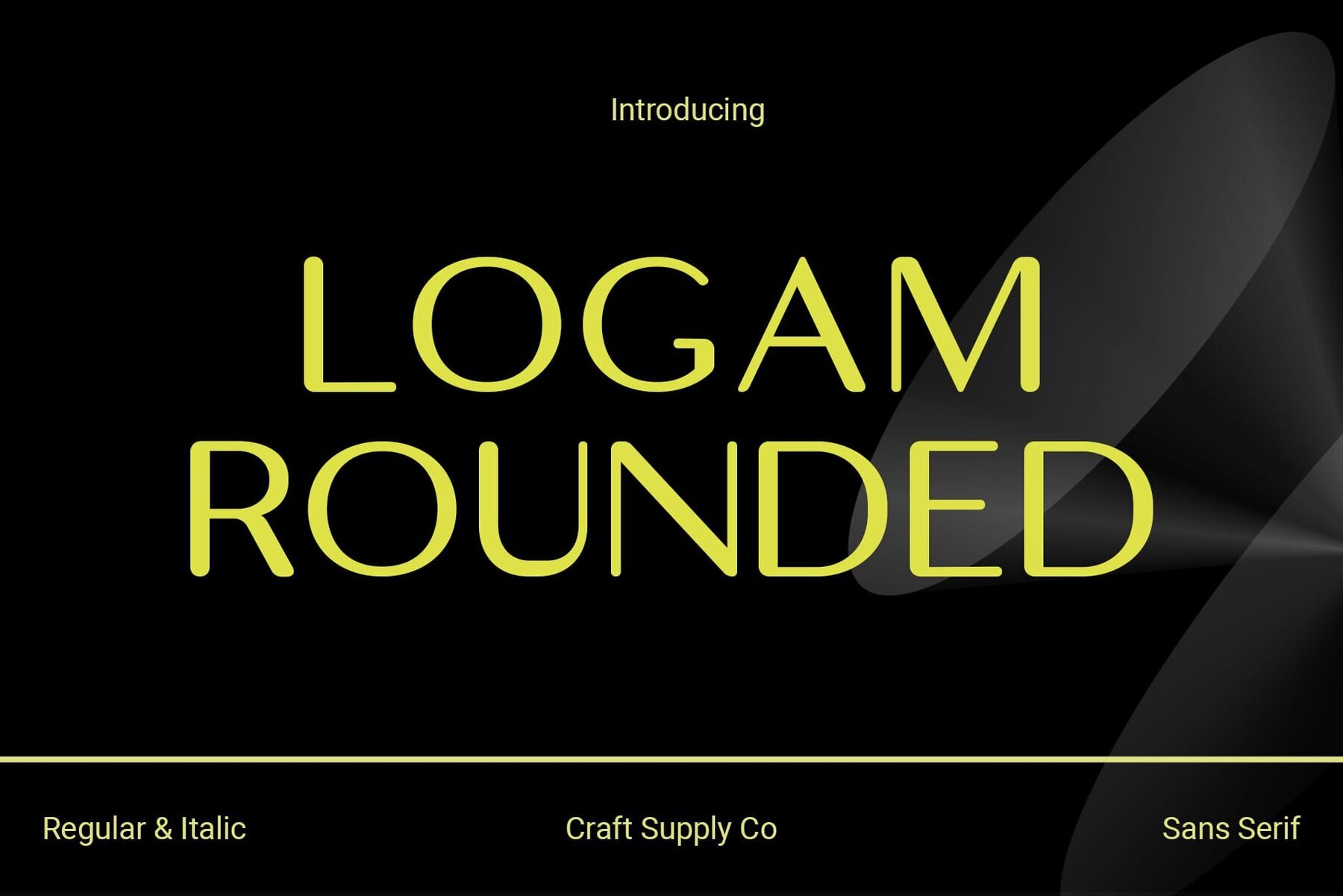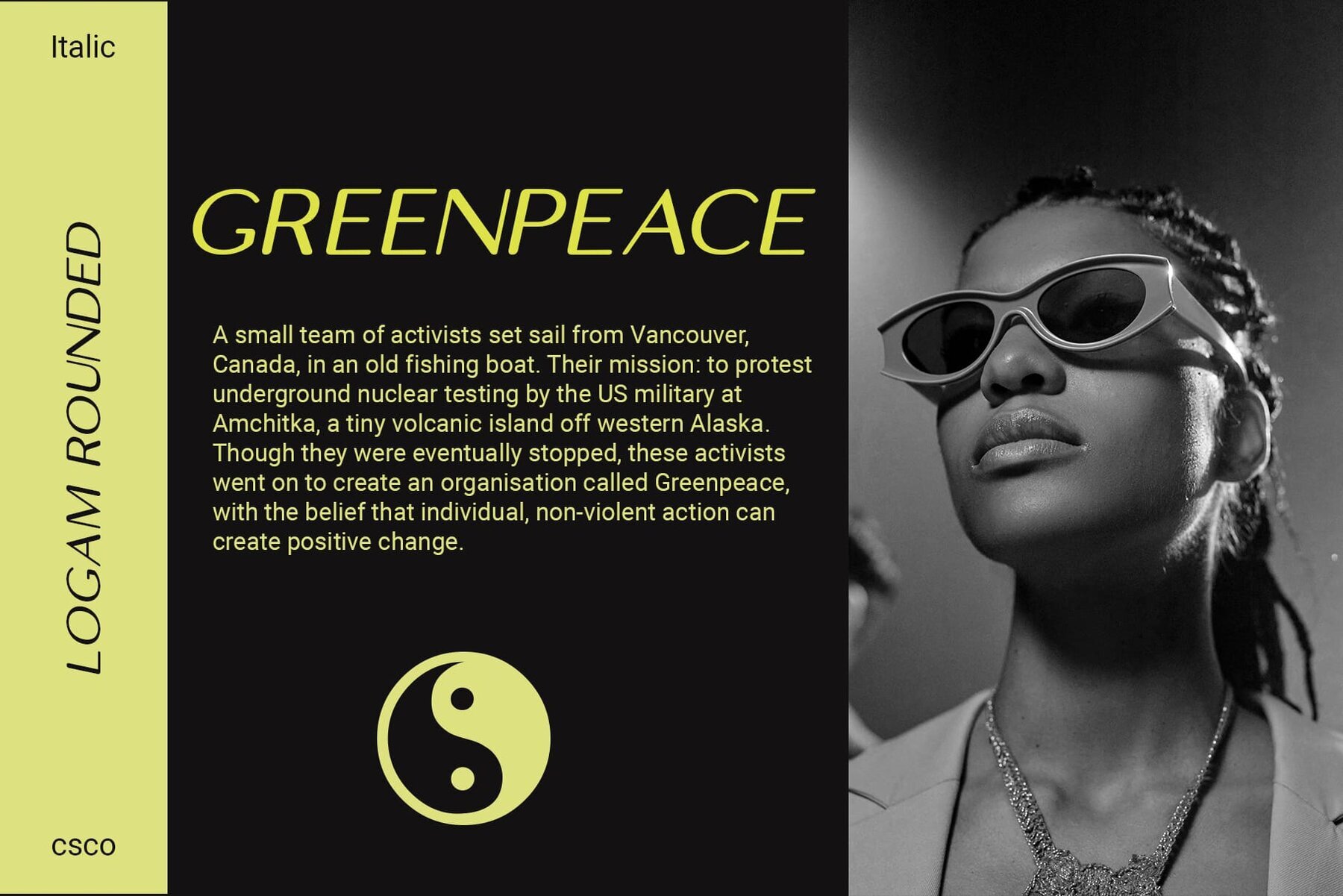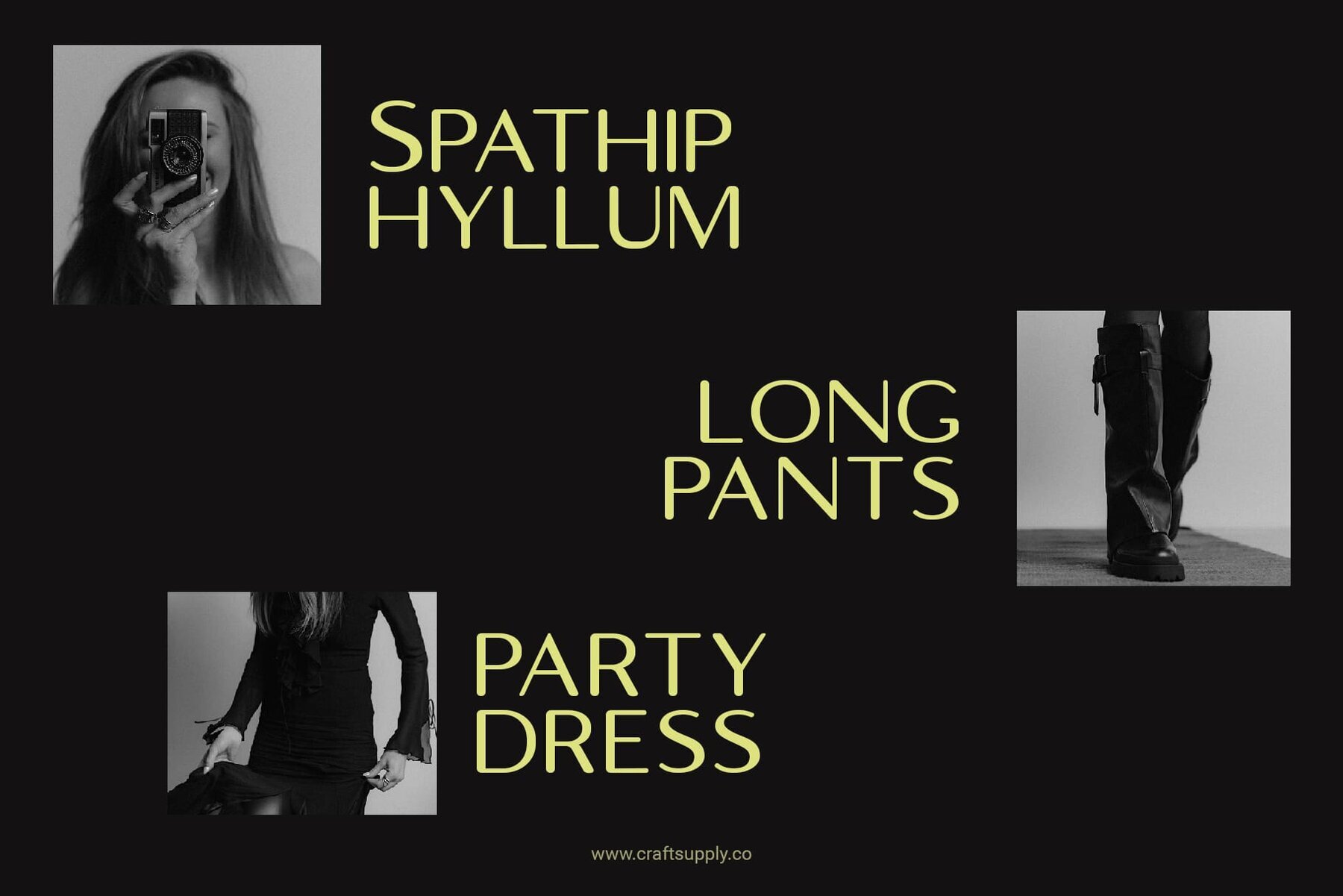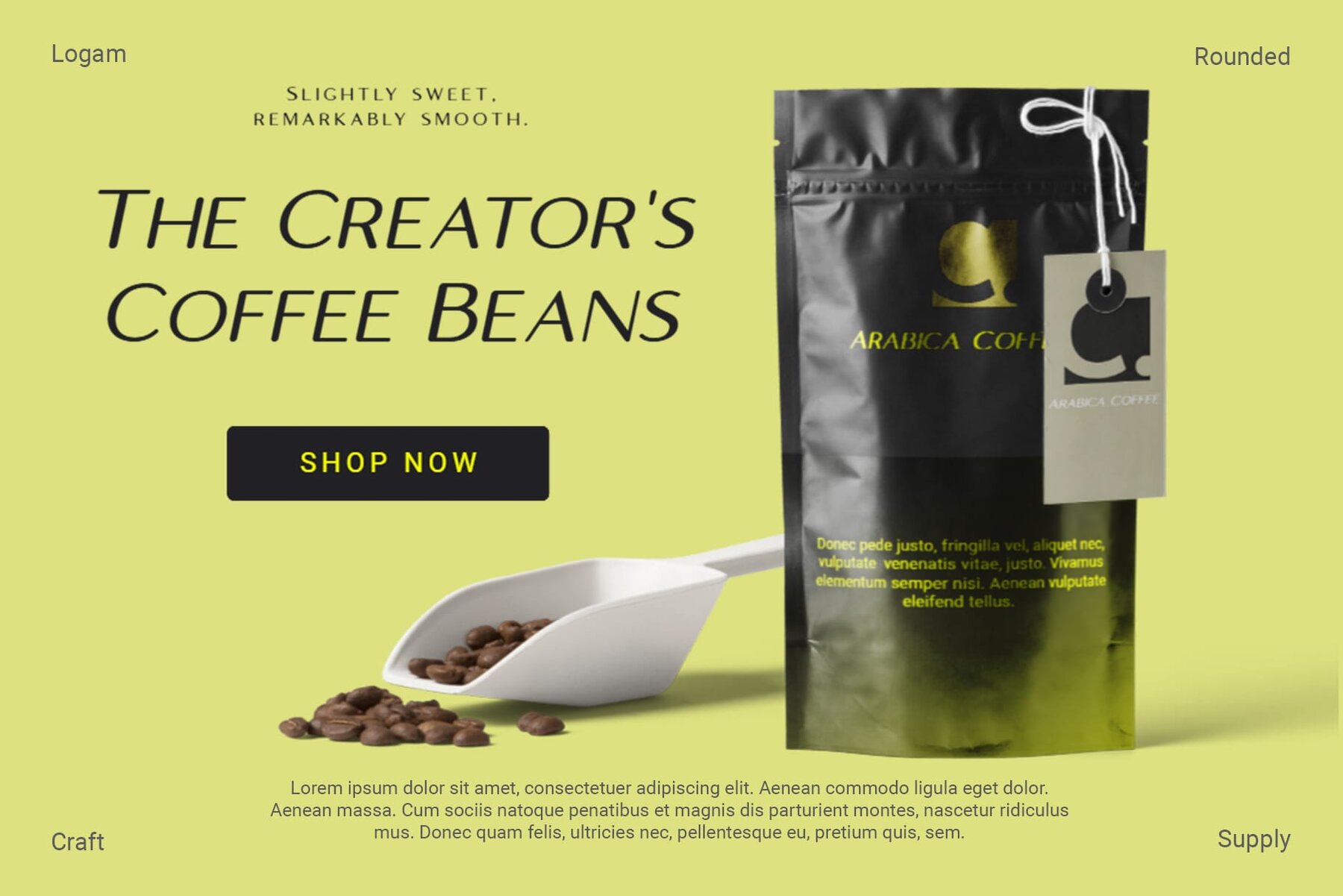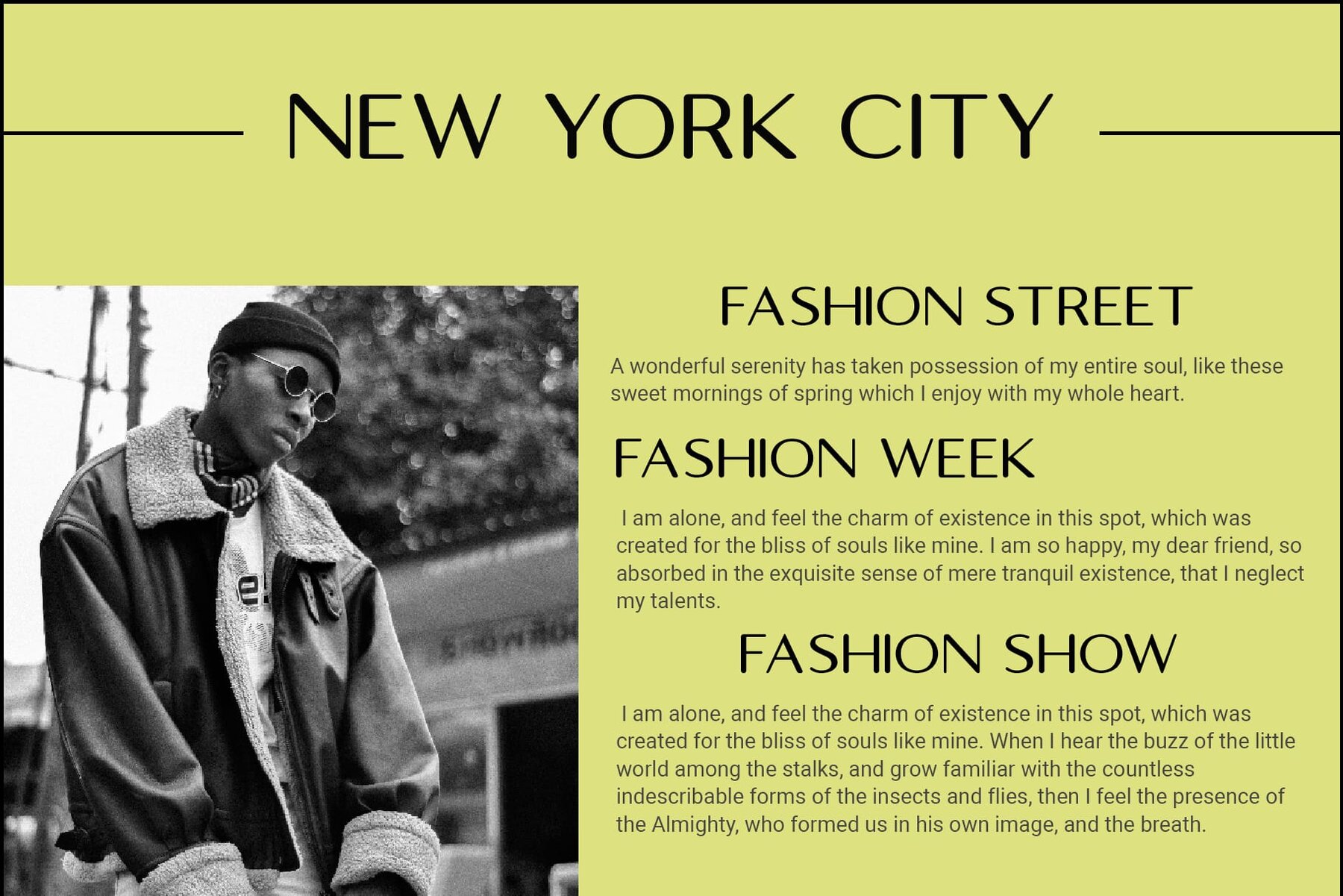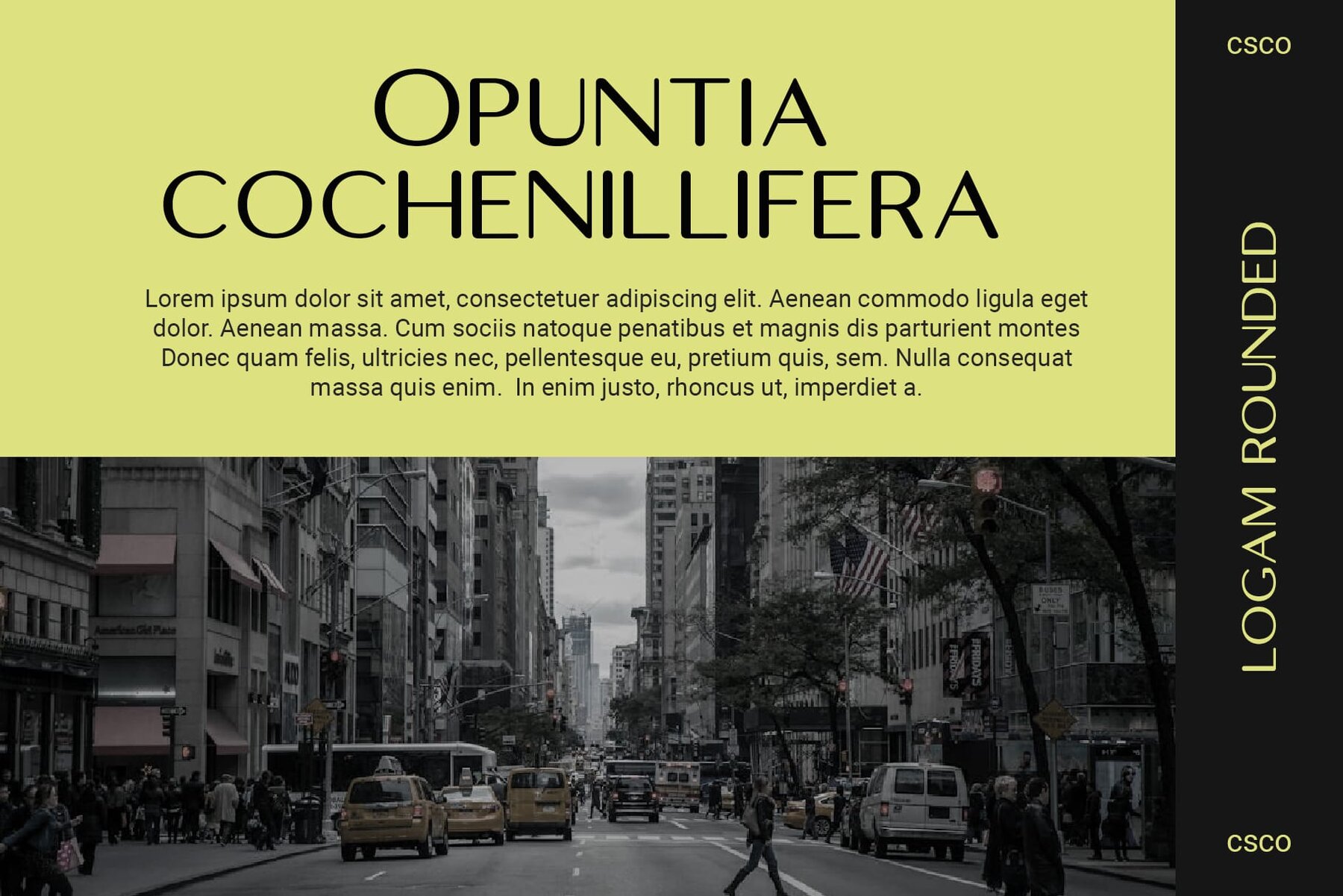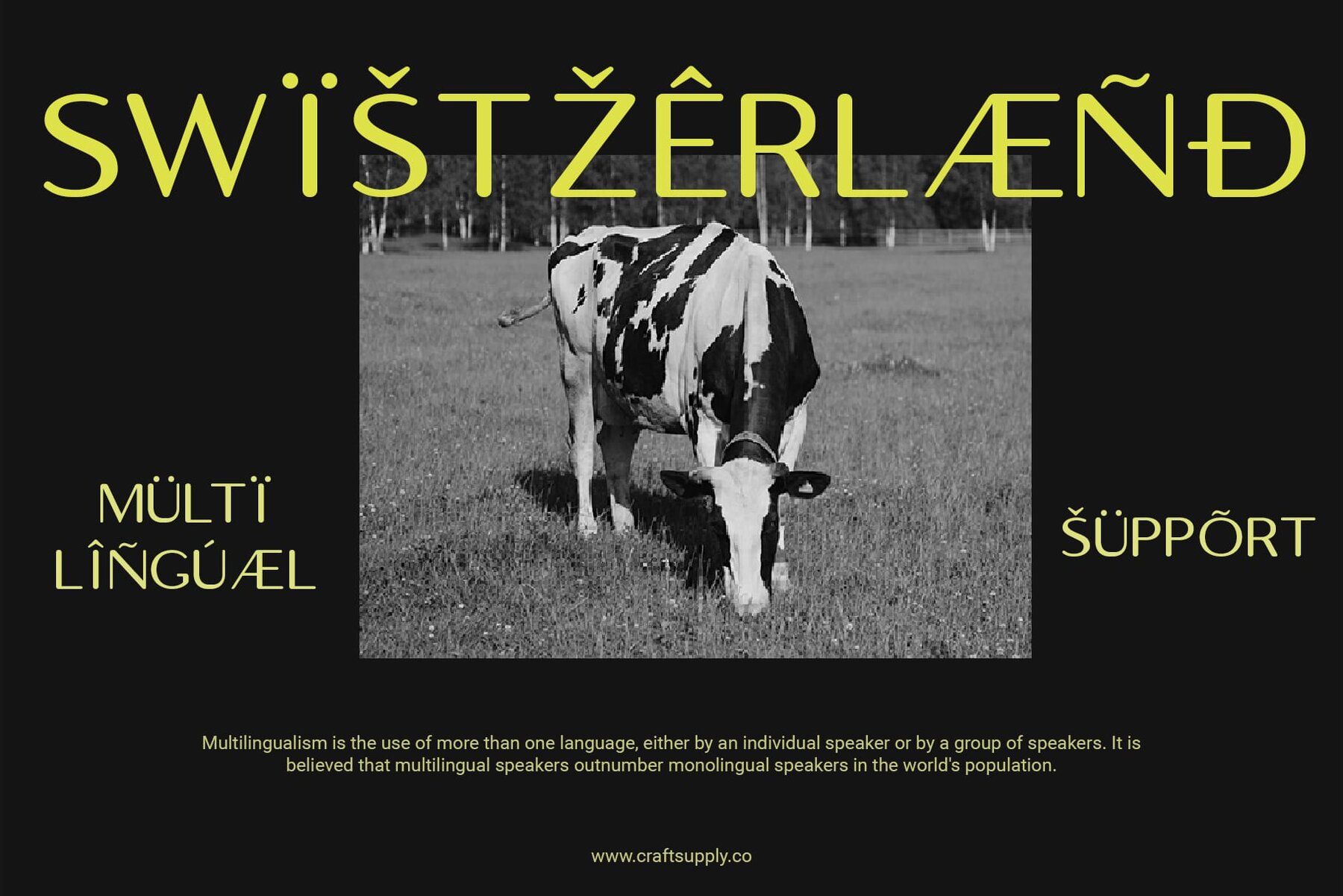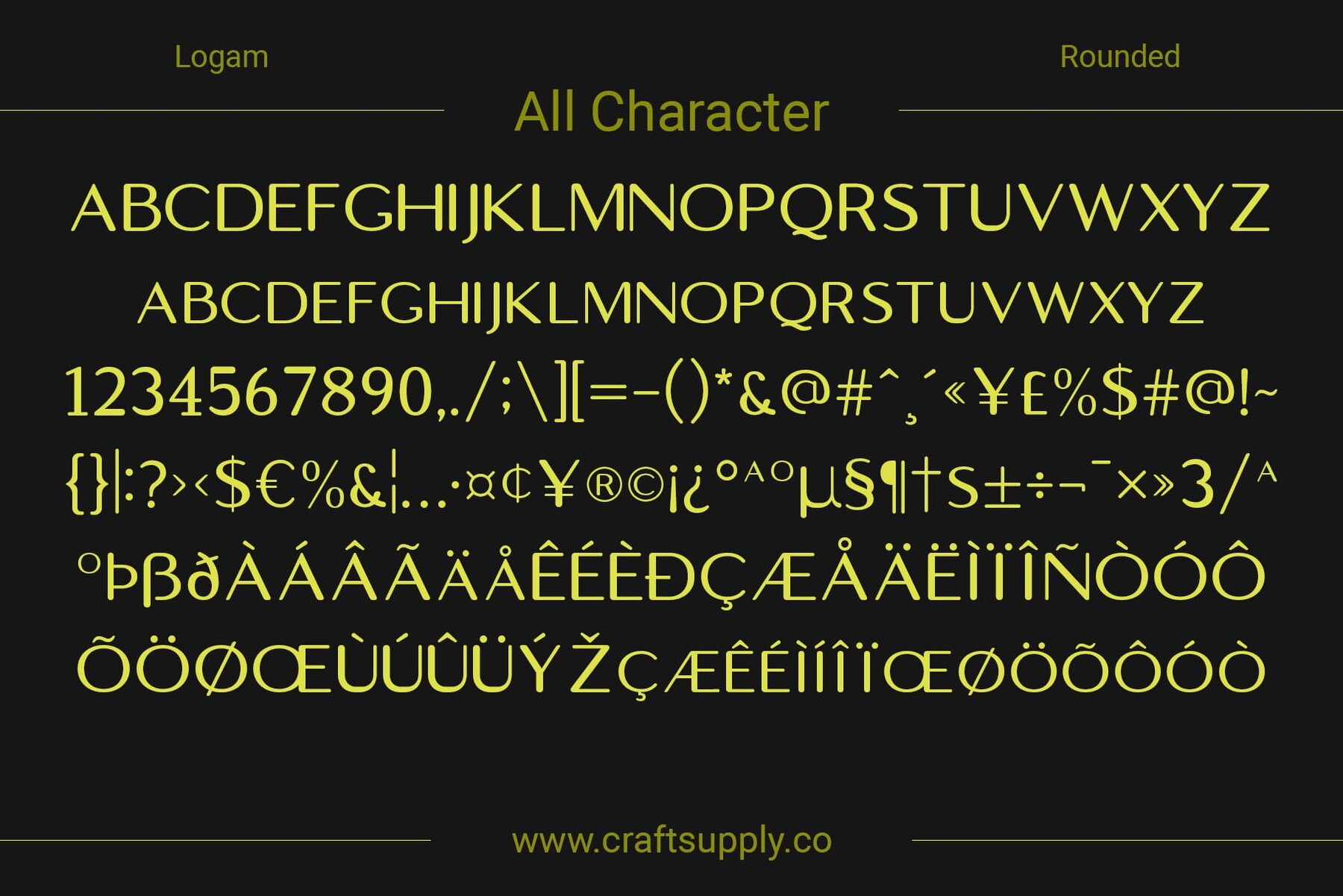
Logam Rounded Font
Logam Rounded offers a high-contrast sans serif with sleek, rounded stem terminals. Seamlessly blending sharp contrasts with soft edges, this typeface provides a balanced, modern aesthetic that is visually captivating and versatile.
Perfect for branding, editorial design, and web projects, Logam Rounded's design adds flair and ensures your message stands out. It features uppercase and lowercase characters, numerals, punctuation, multilingual support, and PUA encoding.
Features include:
- Uppercase and lowercase characters
- Numerals and punctuation (OpenType Standard)
- Accents (Multilingual support)
- PUA Encoding
Craft sophisticated and eye-catching designs with Logam Rounded.